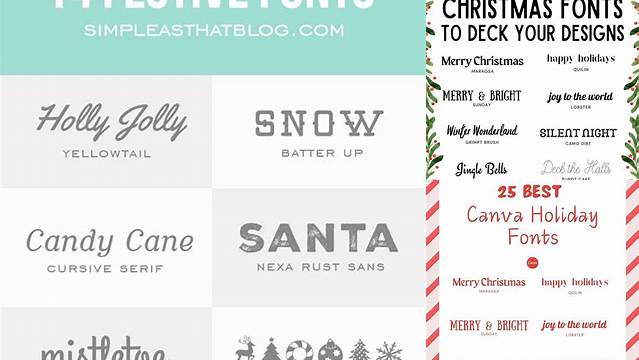
Festive Fonts: Your Guide To Cute Christmas Fonts In Word
Hey everyone! Christmas is just around the corner, and you know what that means – time to deck the halls, put up the tree, and, of course, get creative with your holiday projects! Whether you're designing Christmas cards, creating festive flyers, or simply adding a touch of holiday cheer to your documents, choosing the right font can make all the difference. Today, we're diving into the wonderful world of cute Christmas fonts on Word, exploring how to find them, use them, and make your holiday creations stand out. So, grab a cup of hot cocoa, get cozy, and let's unwrap the secrets of festive typography!
1. The Magic of Christmas Fonts: Setting the Holiday Mood
Cute Christmas fonts on Word aren't just about aesthetics; they're about evoking a feeling. The right font can instantly transport your audience to a winter wonderland, conjuring images of twinkling lights, cozy fireplaces, and the joy of the season. Think about it: a playful, whimsical font can capture the excitement of children on Christmas morning, while an elegant, script-style font might be perfect for a sophisticated holiday invitation. The power of typography to convey emotion is undeniable, and when it comes to Christmas, the possibilities are endless. Finding the perfect font sets the stage and enhances your message. It's about establishing the mood and captivating your audience from the first glance. So, embrace the magic of fonts, and let them do the talking! They're not just letters; they're tiny emissaries of holiday cheer. Selecting the right one can transform any ordinary document into something extraordinarily festive and memorable. Consider the tone you want to convey – is it fun and lighthearted or more formal and elegant? This will influence your choices. Experiment with various fonts to discover which one aligns perfectly with your vision and festive theme. In doing so, you will undoubtedly enhance the overall appeal of your holiday-themed creations and leave a lasting impression on everyone who views them.
1.1. Why Fonts Matter in Your Christmas Designs
In the realm of holiday design, fonts are the unsung heroes. They do far more than merely convey text; they establish the entire aesthetic of your project. When you choose cute Christmas fonts on Word, you're not just choosing letters; you're selecting a mood, a tone, a feeling. The perfect font can make your Christmas cards feel warm and inviting, your flyers playful and exciting, or your presentations elegant and sophisticated. Fonts have the remarkable ability to transport your audience to the heart of the holiday season, evoking memories of festive celebrations and shared joy. A whimsical font can capture the excitement of children eagerly awaiting Santa's arrival, while a graceful script might enhance the elegance of a holiday party invitation. So, as you embark on your Christmas design journey, remember that fonts are not just an afterthought. They are the foundation upon which your creativity is built, the key to unlocking the holiday spirit in every piece of design you create. Choosing the right font is the first step in creating designs that are memorable, effective, and filled with the spirit of Christmas.
1.2. The Psychology Behind Font Choices
Have you ever stopped to consider the psychology behind font choices, particularly when it comes to cute Christmas fonts on Word? It's a fascinating field, really. Different fonts trigger distinct emotional responses in viewers. A playful, rounded font can evoke feelings of joy, warmth, and approachability – ideal for children's Christmas activities or informal greetings. On the other hand, a more structured and elegant font might convey sophistication and formality, perfect for a holiday dinner invitation or corporate Christmas message. The visual cues provided by a font can influence how your audience perceives your message. A well-chosen font creates a visual connection, making your design more memorable and engaging. It allows your audience to connect with the spirit of Christmas on a deeper level. When selecting fonts, think about the message you want to convey. Is it one of excitement, joy, or tradition? Your font choice should reflect this. Consider the overall tone and style of your project, and choose fonts that complement your message. The psychology of font choices highlights the importance of careful selection in creating designs that resonate with your audience and embody the true spirit of the holiday.
2. Discovering Free Christmas Fonts for Word